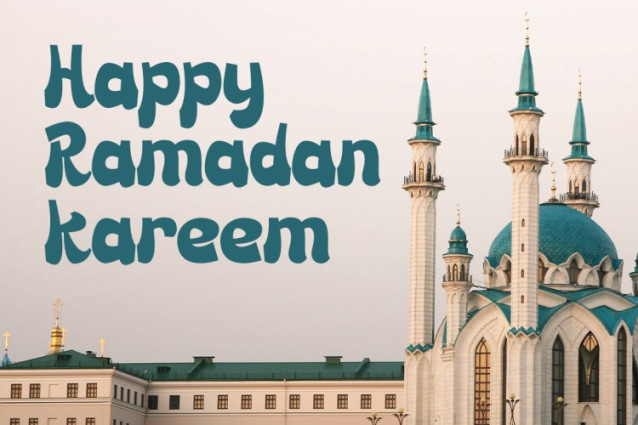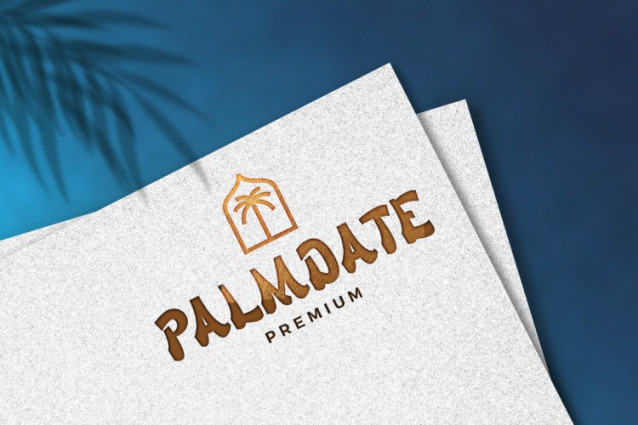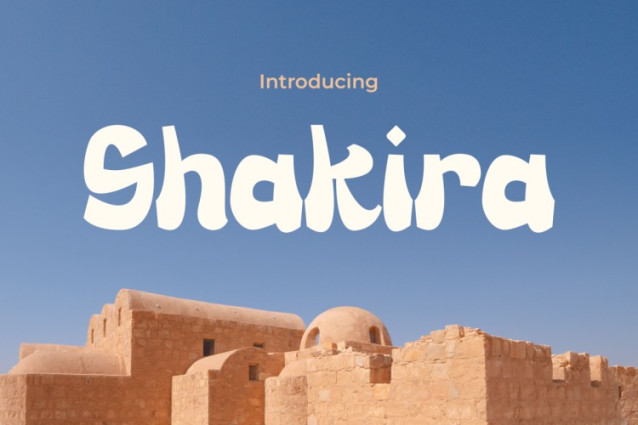
Shakira Font
Shakira Font is a bold, expressive typeface that blends a playful, handcrafted look with modern design. Inspired by organic letterforms and artistic calligraphy, SHAKIRA adds a unique and stylish feel to any project. Moreover, its curvy and flowing letters create a lively rhythm, making it perfect for adding energy and personality. Whether for social media graphics, branding, or digital promotions, this font grabs attention instantly.
With a soft yet dynamic structure, SHAKIRA ensures excellent readability while adding fun and originality. Furthermore, its playful character suits various creative applications, making designs feel fresh and engaging. If you want to make a statement, SHAKIRA is the perfect choice for excitement and uniqueness.